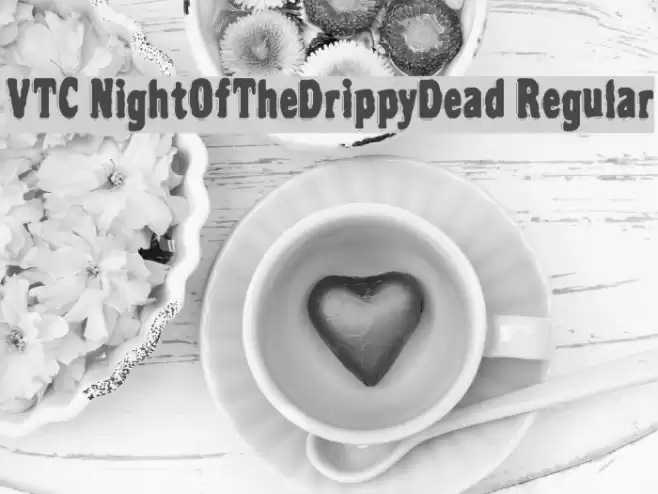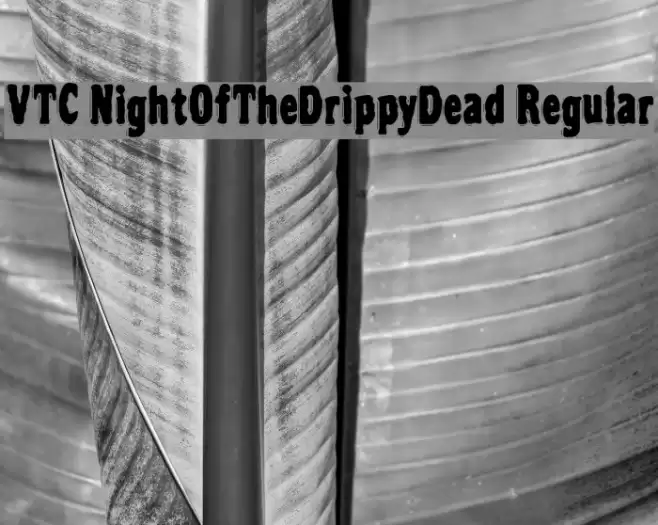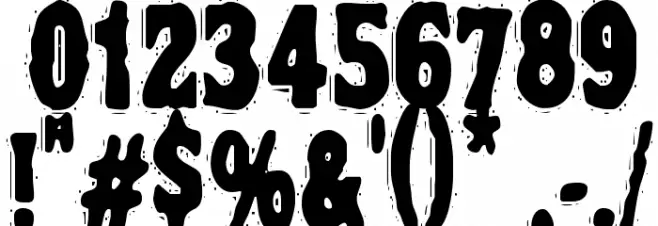
VTC NightOfTheDrippyDead Regular Font
VTC NightOfTheDrippyDead Regular Description
This font features a bold and playful design with a dripping effect that gives it a spooky, Halloween-inspired appearance. The characters are thick and rounded, with uneven edges that create a sense of movement and fluidity. The uppercase and lowercase letters maintain a consistent style, while the numbers and special characters complement the overall theme. The font's unique style makes it stand out, making it ideal for creative and themed projects.
A bold, dripping font with a spooky, playful style from Uncategorized fonts.
- Proposed Projects: Perfect for Halloween-themed designs, party invitations, posters, and creative branding projects.